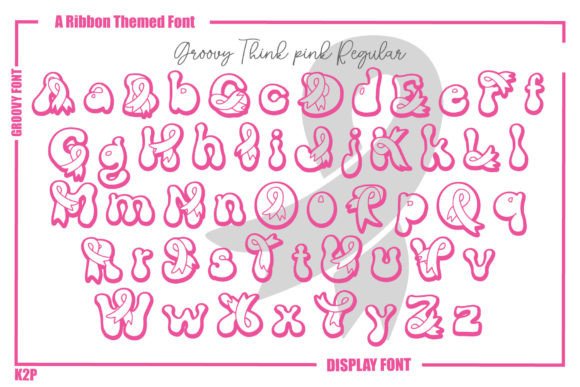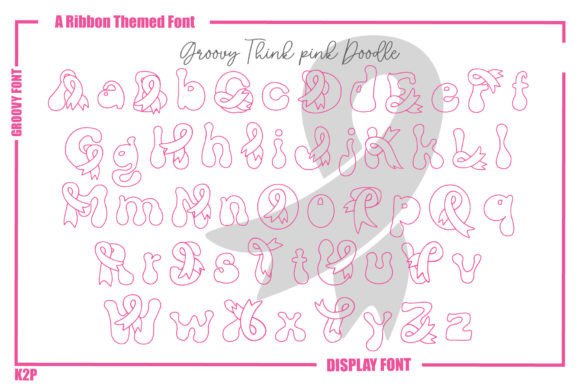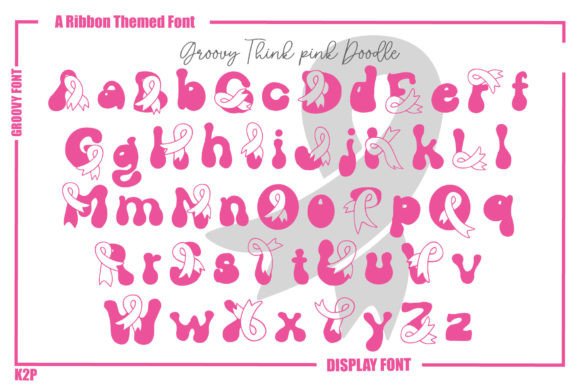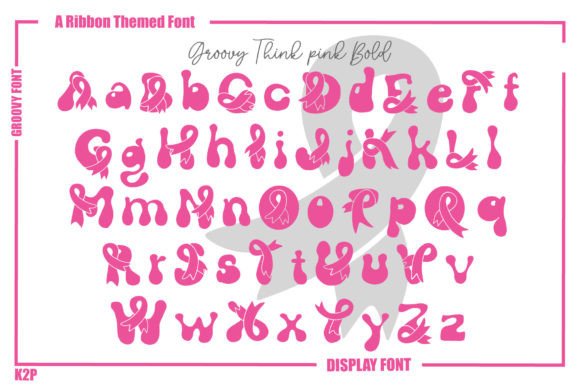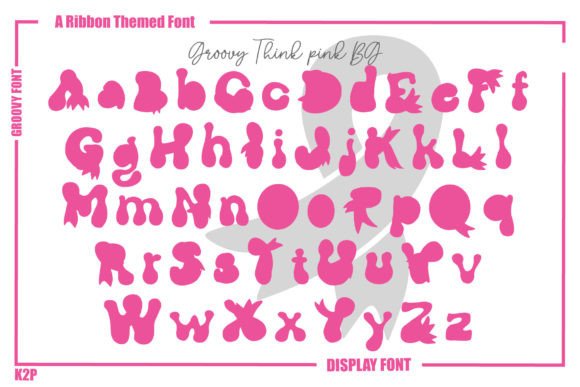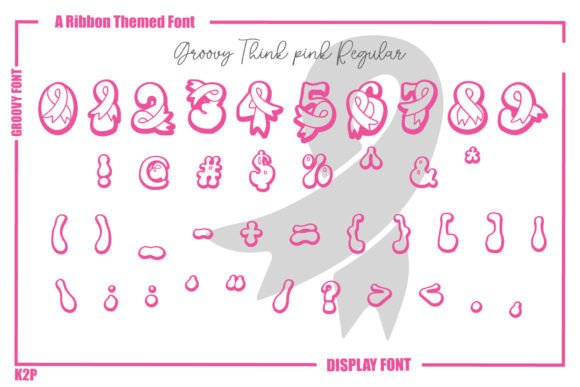
Groovy Think Pink Font: The Perfect Choice for Breast Cancer Awareness Projects
When it comes to creating eye-catching and meaningful designs for breast cancer awareness projects, the right font can make all the difference. That’s where the Groovy Think Pink font comes in – a thick-lettered and unique decorative font family that’s perfectly suited for any breast cancer awareness project. In this article, we’ll take a closer look at what makes this font so special and why it’s a must-have for designers and crafters alike.
The Power of Typography in Breast Cancer Awareness
Typography plays a crucial role in creating visually appealing and effective designs, especially when it comes to breast cancer awareness campaigns. The right font can evoke emotions, convey messages, and even inspire action. For designers and crafters working on breast cancer awareness projects, choosing a font that’s both stylish and meaningful is essential. That’s where the Groovy Think Pink font shines.
Introducing Groovy Think Pink Font
Groovy Think Pink is a one-of-a-kind decorative font family that’s specifically designed to make a statement. Its thick, bold letters are perfect for creating eye-catching headlines, titles, and slogans that grab attention and inspire action. The font’s unique and playful style is reminiscent of the 1970s, making it a great choice for designers and crafters who want to add a touch of nostalgia and fun to their designs.
Why Choose Groovy Think Pink Font?
So, what makes Groovy Think Pink font the perfect choice for breast cancer awareness projects? Here are just a few reasons why designers and crafters love this font:
- Unique and eye-catching: The Groovy Think Pink font is unlike any other font out there. Its thick, bold letters and playful style make it a standout choice for designers who want to create eye-catching and memorable designs.
- Perfect for breast cancer awareness: The font’s pink color and bold style make it a perfect fit for breast cancer awareness projects. It’s a great way to show support and raise awareness for this important cause.
- Versatile: The Groovy Think Pink font is versatile and can be used for a wide range of design projects, from posters and flyers to social media graphics and t-shirts.
How to Use Groovy Think Pink Font in Your Designs
Using the Groovy Think Pink font in your designs is easy. Here are a few tips to get you started:
- Pair it with other fonts: The Groovy Think Pink font pairs well with other fonts, such as sans-serif fonts like Arial or Helvetica. Experiment with different font combinations to create visually appealing designs.
- Use it for headlines: The font’s bold style makes it perfect for headlines and titles. Use it to grab attention and draw the eye to important information.
- Add a personal touch: The Groovy Think Pink font is perfect for adding a personal touch to your designs. Use it to create custom graphics, such as t-shirts, mugs, or tote bags.
The Groovy Think Pink font is a unique and eye-catching decorative font family that’s perfectly suited for breast cancer awareness projects. Its thick, bold letters and playful style make it a standout choice for designers and crafters who want to create memorable and effective designs. Whether you’re creating posters, social media graphics, or custom merchandise, the Groovy Think Pink font is a great choice. So why not give it a try and see how it can elevate your designs?